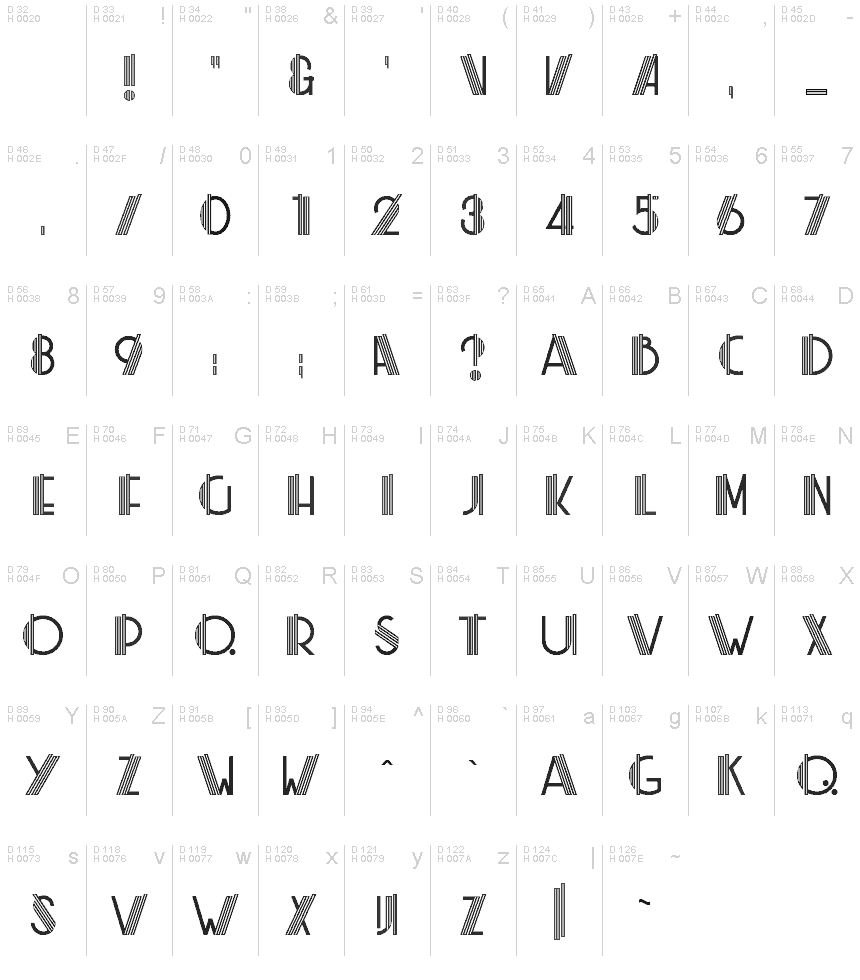
ML Rainbow KK
ML Rainbow KK is a bold, retro-inspired display font that commands attention. Characterized by its striking stripes and dynamic curves, this font exudes a playful, energetic vibe.
The varied line widths create a sense of depth and movement, lending an almost three-dimensional quality to the letterforms. With its bold, unapologetic presence, ML Rainbow KK is well-suited for headlines, logos, and other attention-grabbing design elements.
Its vibrant, eye-catching aesthetic makes it a versatile choice for a wide range of applications, from modern branding to nostalgic, vintage-inspired projects.
Based on a original design by Marcia Loeb (1975). Sister font of ML ZigZag KK v1.2.
Digitized and hand-kerned by koeiekat. Capitals only. Numbers, basic punctuation, Western Latin accents and some alternates added.
Alternate A's under a, + and =.
Alternate G under g.
Alternate K under k.
Alternate Q under q.
Alternate S under s.
Alternate V's under v, ( and ).
Alternate W's under w, [ and ].
Dutch IJ under y.